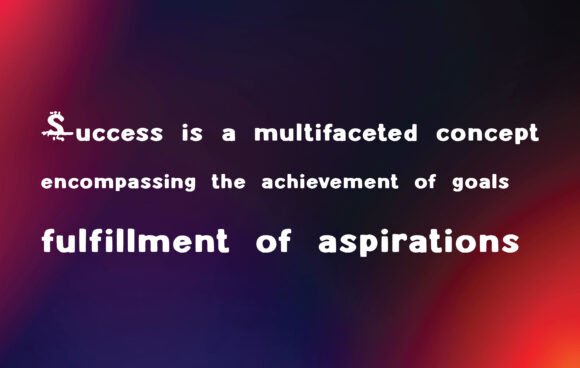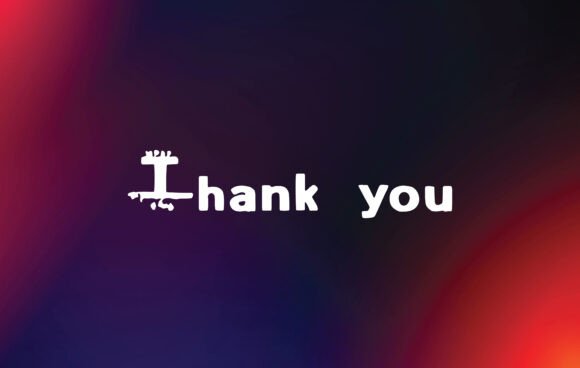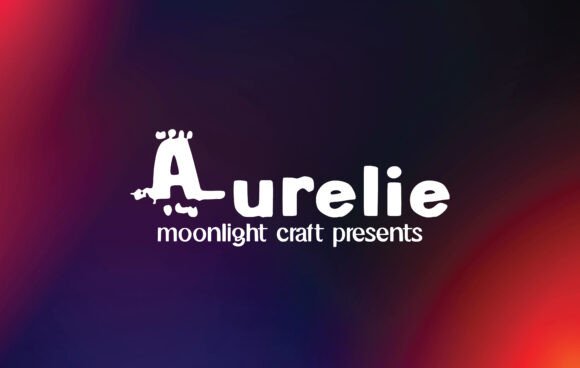
Discover the Versatility of Aurelie Font: Your New Go-To for Creative Projects
I’ll never forget the design struggle is real moment I had while working on a magazine cover project. My client wanted a font that was not only eye-catching but also easy to read, and I was determined to find the perfect one. After hours of scrolling through font libraries, I stumbled upon Aurelie Font, and it instantly became my top choice. Its clarity, versatility, and stylish personality won me over, and I’ve been hooked ever since. In this article, I’ll share my honest review, practical tips on how to use Aurelie Font, and explore its amazing features that make it a must-have for designers, crafters, and creative hobbyists.
An Honest Review of Aurelie Font
• ✨ Versatility: Aurelie Font is designed to be a go-to favorite for various creative projects, from magazine covers to social media posts, and it delivers.
• ✅ Readability: Its clear and easy-to-read design makes it perfect for both titles and body text.
• 💃 Style and Personality: Aurelie Font brings a touch of elegance and sophistication to any design, making it ideal for wedding invitations, greeting cards, and more.
While Aurelie Font is an excellent choice, there are a few minor considerations to keep in mind:
• 🤔 Limited availability of certain OpenType features: Some advanced typographic features might not be available in all platforms or software.
• ⚠️ Occasional kerning issues: As with any font, you might encounter minor kerning issues, especially when using it in specific design contexts.
The Story Behind Aurelie Font
Aurelie Font was designed with the intention of creating a versatile and stylish typeface that could be used across various creative projects. Inspired by classic French typography and modern design trends, Aurelie Font aims to bring a touch of elegance and sophistication to any design. Whether you’re a professional designer or a creative hobbyist, Aurelie Font is designed to help you bring your ideas to life with style and personality.
What makes Aurelie Font suitable for both titles and body text? Aurelie Font’s clear and easy-to-read design, combined with its stylish personality, makes it an excellent choice for both titles and body text.
Is Aurelie Font compatible with OpenType features? Yes, Aurelie Font supports OpenType features, including ligatures and stylistic alternates, allowing you to add a creative twist to your designs.